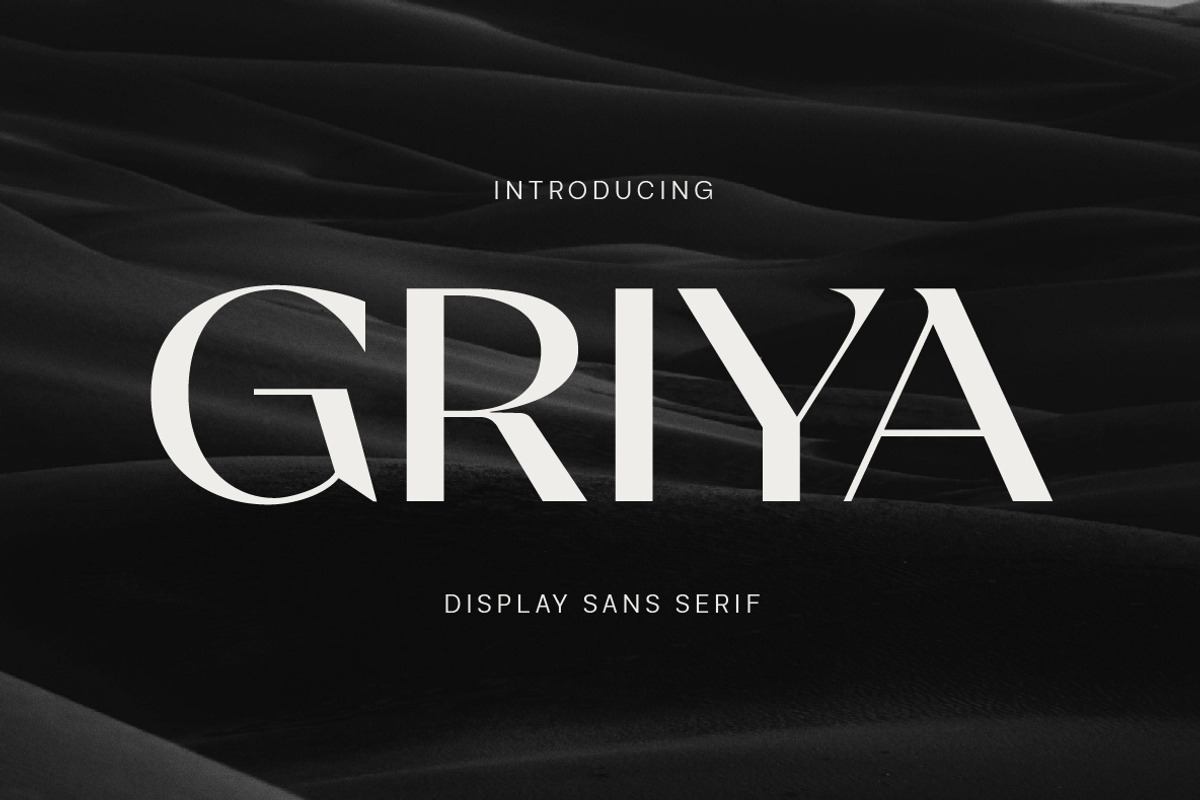
Griya Display Font Free Download
The Griya Display Font Free Download is a bold and modern typeface designed to make a strong impact in your designs. With its unique letterforms and clean, geometric lines, this font is perfect for creating eye-catching logos, posters, headlines, and branding materials. Its striking design ensures your typography stands out, whether for digital or print media. The Griya Display Font adds a contemporary, professional touch to any project, making it ideal for both creative and business applications. Please note, for commercial use, a license purchase is required. However, you can easily download the Griya Display Font Free Download for free for personal use and explore its versatile style. Download the Griya Display Font Free Download today and elevate your designs with its bold, modern aesthetic.